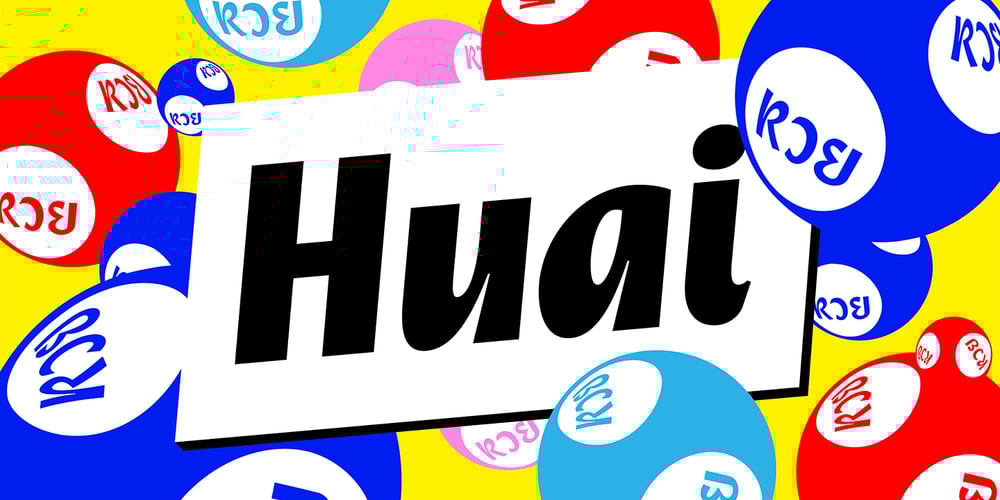
Huai Font Family was designed by Potch Auacherdkul and published by Positype. Huai contains 12 styles and family package options. Huai and Huai Thai marks the first professional typeface release by Potch Auacherdkul and represents the culmination of research into the duality of influences between handwritten, vernacular Thai lettering and Latin typefaces. The result is a warm, expressive typeface that doesn’t abandon the human hands and the language that produced them.With Thai script, there are two different terminal styles—the Loop terminal style, associated with the original forms of Thai glyphs; and the Loopless, which has evolved to best coordinate with Latin sans serif typefaces. In recent years, this Thai Loopless style has continued to influence and even change to become ‘more Latin.’ One would go so far as to define these heavily Latin-influenced typefaces as Thai Latinized. This curiosity with shifting influences, turns the idea around and explores what would happen if the vernacular Thai scripts actually influenced their Latin counterparts instead.An Inversion of Thai Latinized is the result. The street signs of Bangkok, local vernacular writing, quick, fluid strokes… these influences form the DNA behind the Huai Thai typeface. Refining and systematizing those natural, handwritten strokes into a Thai typeface and then using those solutions to serve as the pioneer proportions behind the development of its Latin script companion was the product. Huai adopted the essence of these Thai glyphs into the Latin and uniquely embraced the contemporary writing system (and soul) of the Thai people in its letterforms.